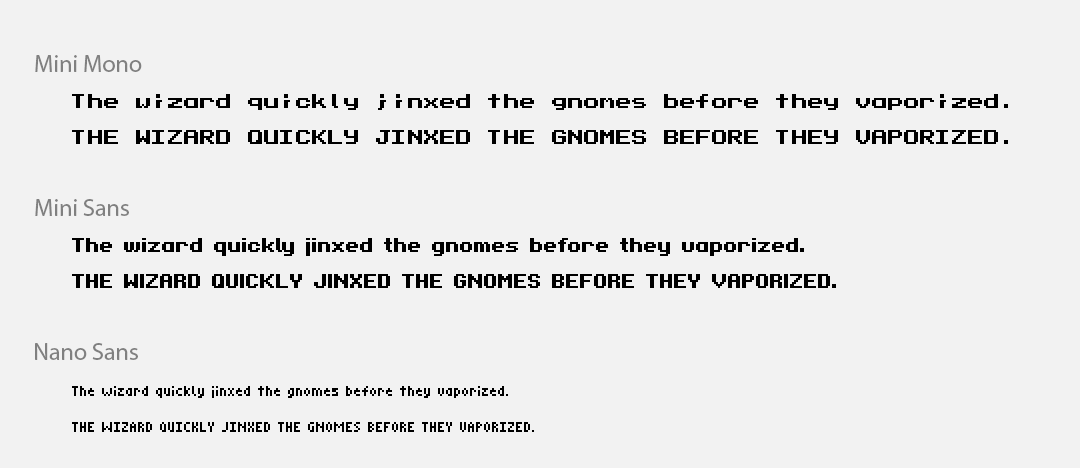
I made some fonts you can use! These are small fonts, intended to be used at 2X display scale. There's a monospace font, if you want to feel really retro, but there's also a proportional that's roughly the same size, and a very small nano font as well. All fonts support the full standard English & Symbols characters from Font Tool, though you might want to favor using all-caps text with Nano Sans.